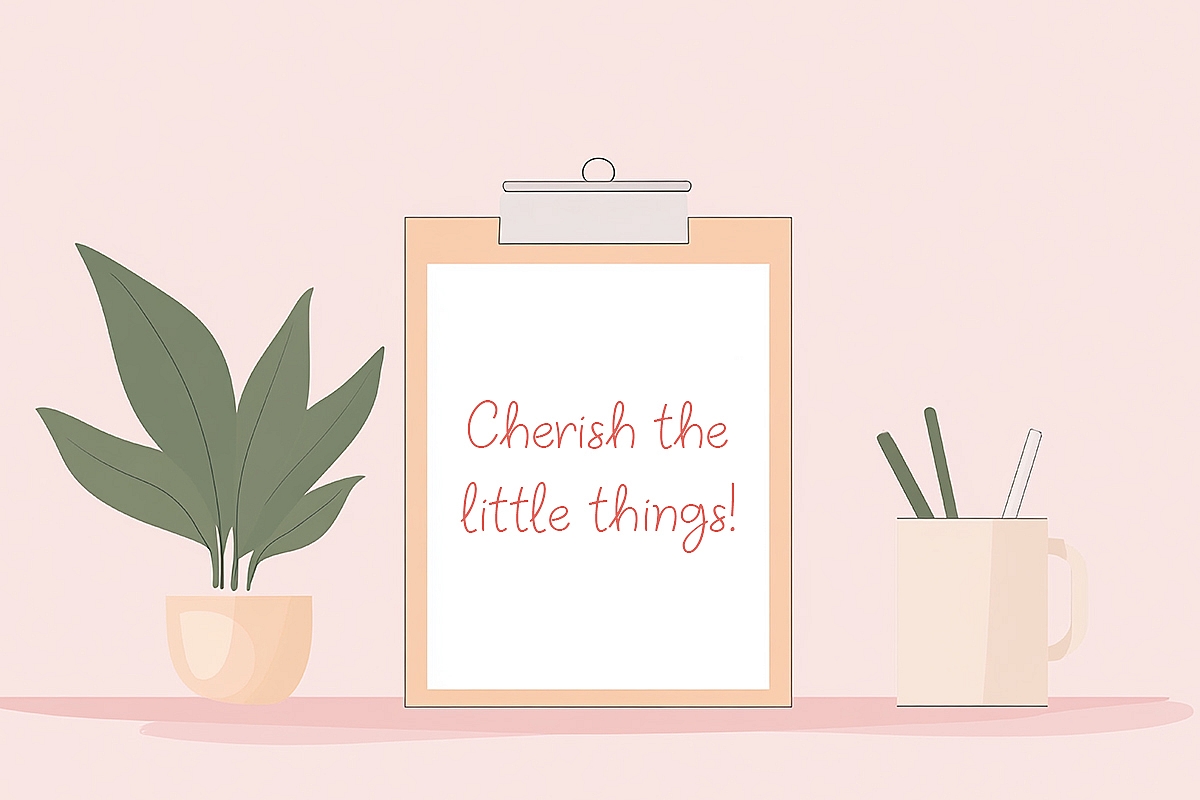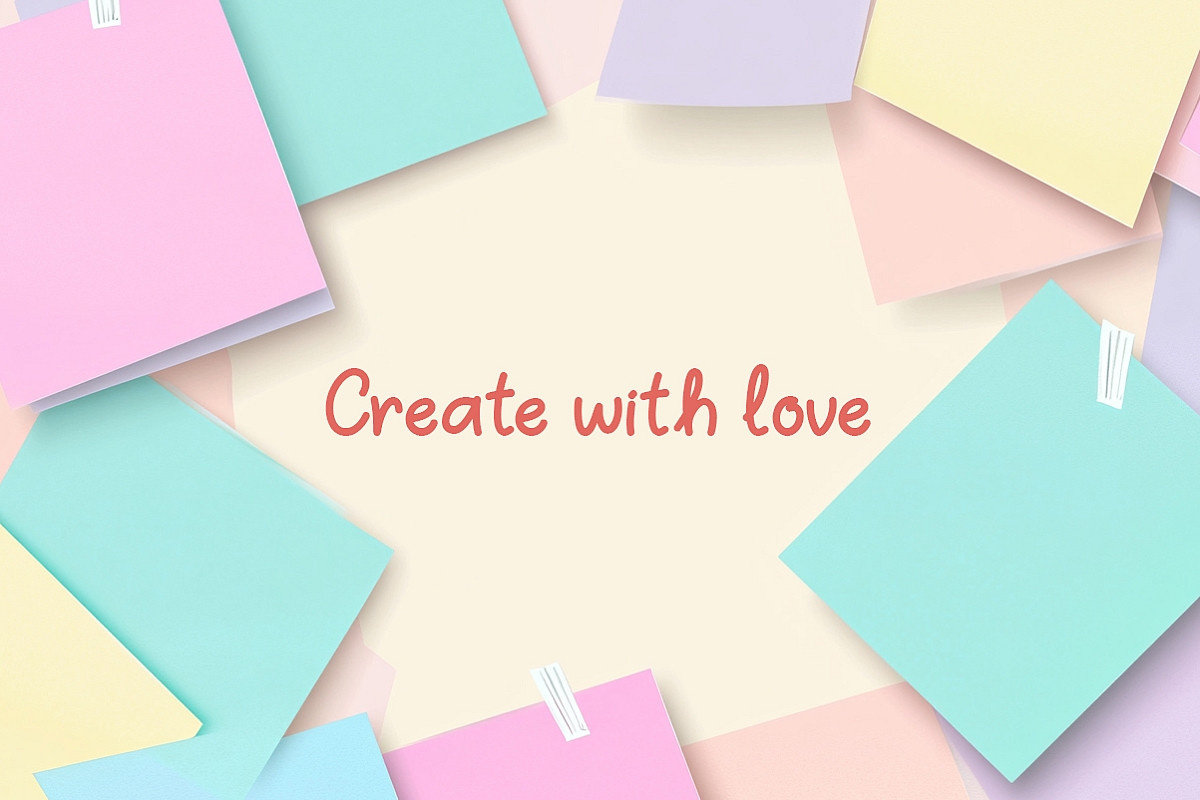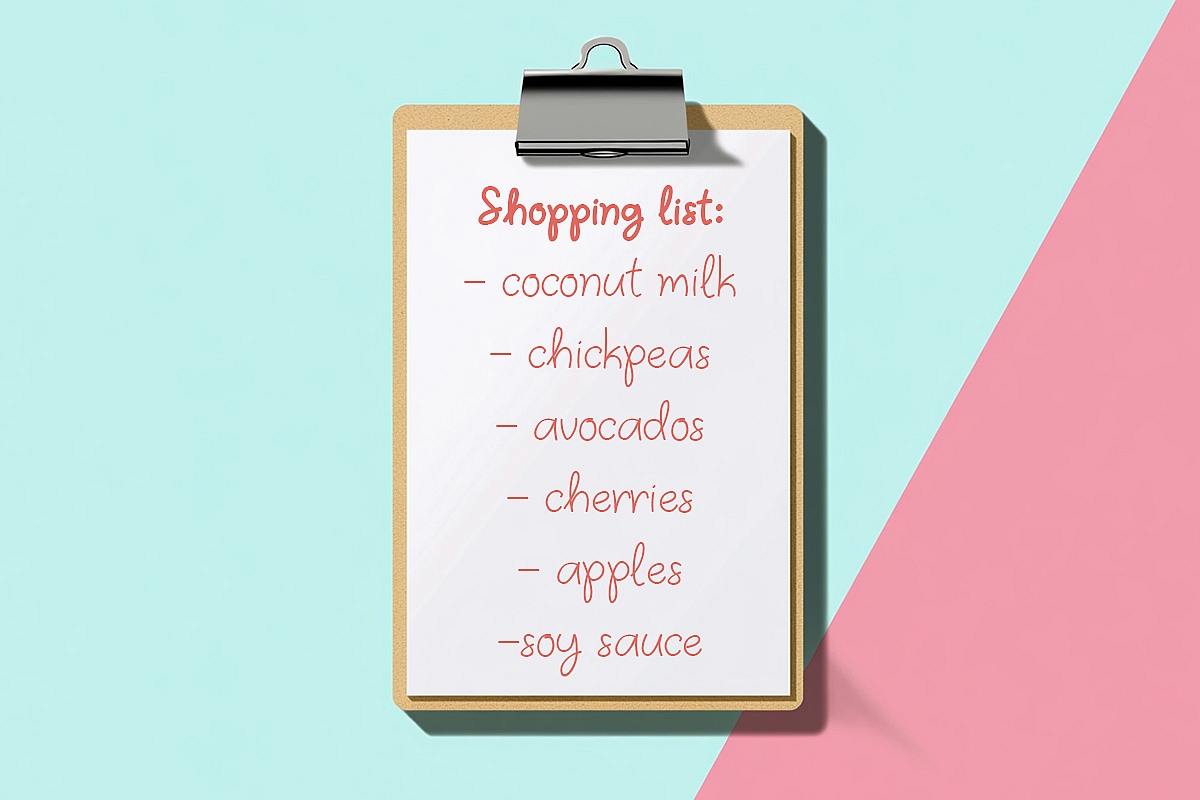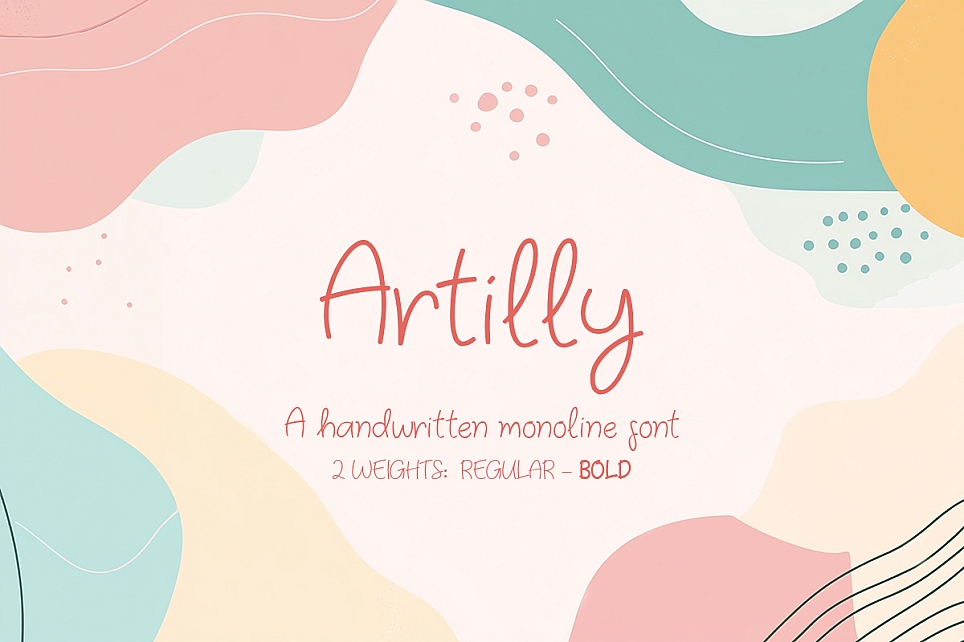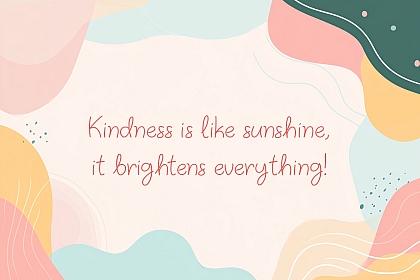
Artilly: Elegant Handwritten Font with Artistic Flair
Artilly is a charming handwritten artist font characterized by its smooth lines and artistic flair. Designed to emulate the fluidity and grace of hand-drawn lettering, Artilly captures the essence of creativity and personal expression.
Its strokes flow effortlessly, creating a sense of warmth and uniqueness that is often associated with handmade typography. The letters are crafted with attention to detail, ensuring a balance between elegance and readability.
Key Features:
• Smooth, flowing lines with an artistic and graceful style
• Hand-drawn lettering that exudes creativity and personal expression
• Carefully crafted strokes that balance elegance and readability
• Unique charm that brings warmth and individuality to designs
Ideal For:
• Creative projects such as art prints and posters
• Personalized branding and logo design
• Invitations, greeting cards, and event stationery
• Social media content that requires a distinctive, artistic touch
Overall, Artilly is a perfect choice for projects that require a touch of creativity and a personalized feel, adding a distinctive charm to any design it graces.